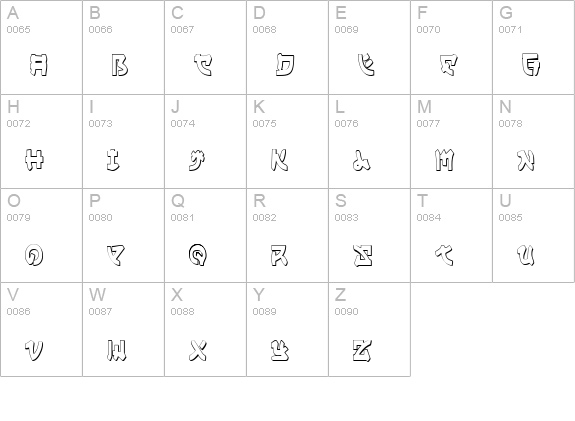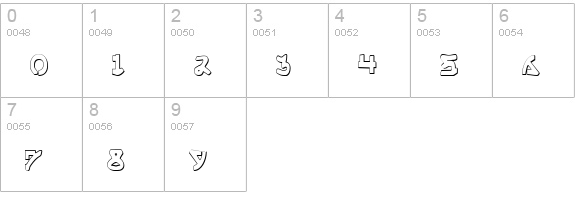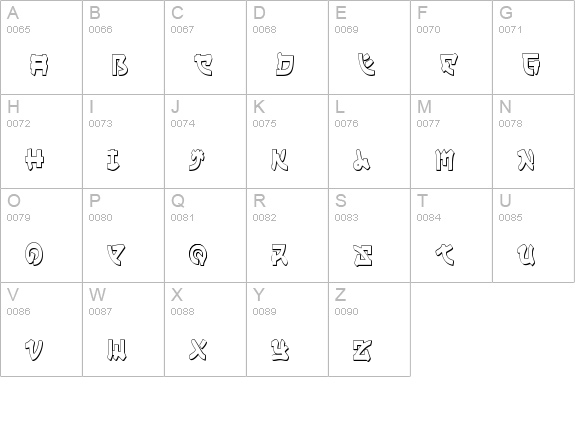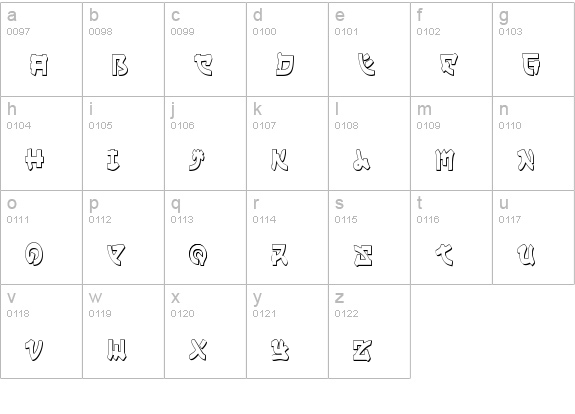
Yama Moto Condensed 3D Font Details
Yama Moto Condensed 3D is a distinctive, condensed-width variant in the Yama typeface family \xE2\x80\x94 well suited to design and typography projects.
Yama Moto Condensed 3D font is a sleek and modern typeface that exudes sophistication and style. Its condensed design gives it a unique and eye-catching appearance, making it perfect for a wide range of design projects. The three-dimensional effect adds depth and dimension to your text, adding a touch of flair and elegance. This font is not only visually stunning but also highly versatile, making it suitable for various applications such as logos, headlines, posters, and more. Whether you're looking to create a bold and impactful design or a subtle and refined look, Yama Moto Condensed 3D font has got you covered. And the best part? This font is completely free to download at FontsMarket.com. So go ahead and elevate your designs with this exceptional typeface today!